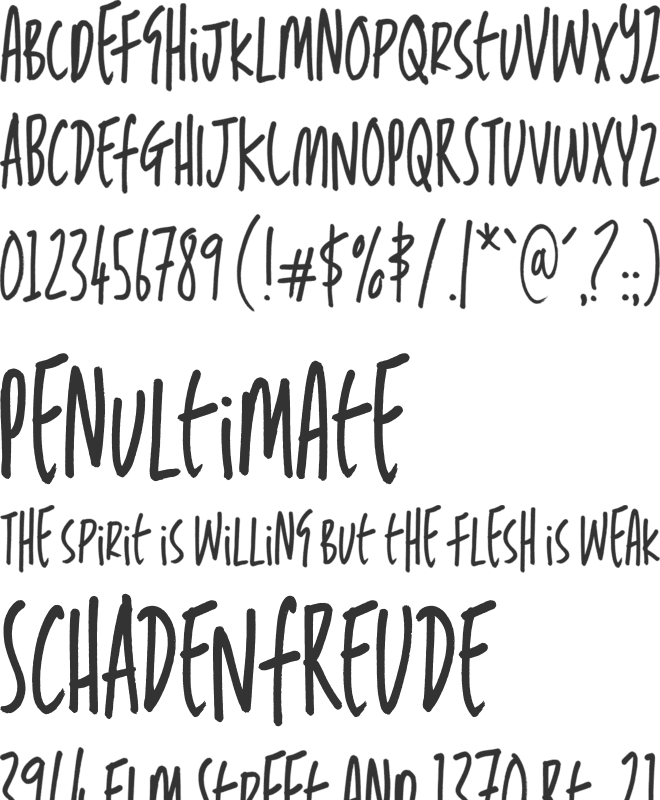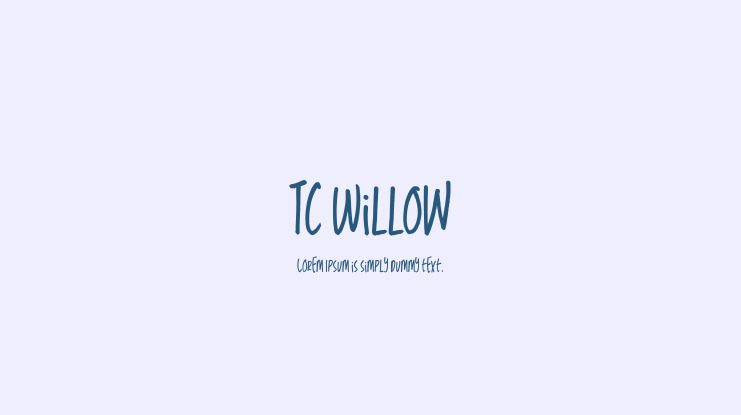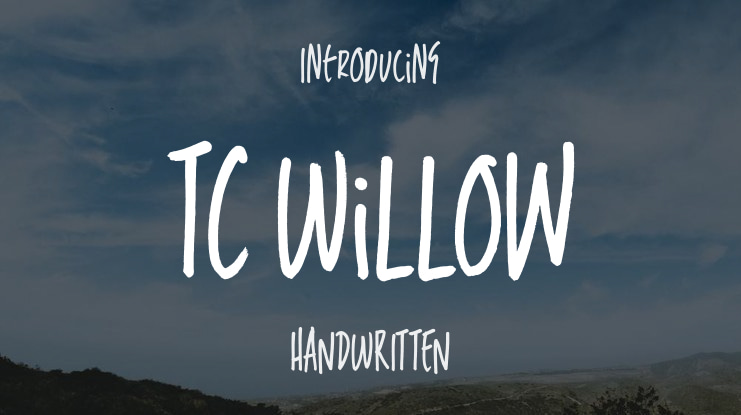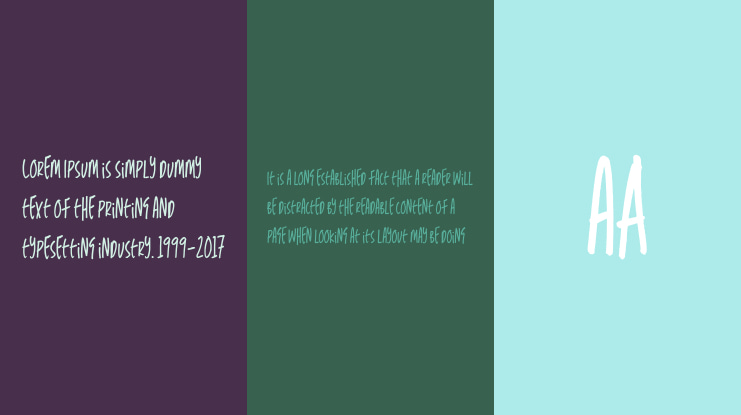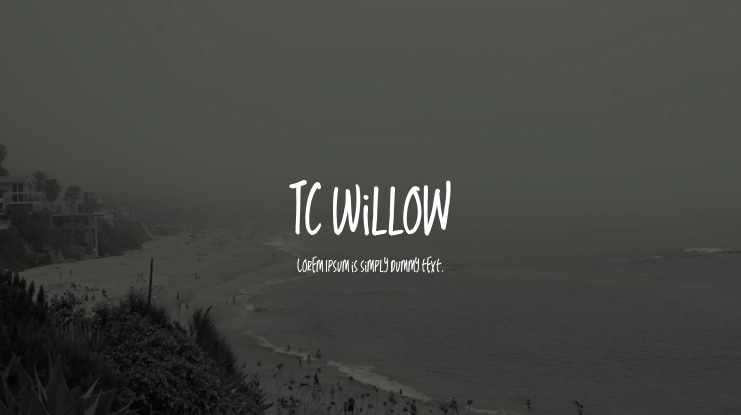
ABOUT THE FULL FONT COLLECTION:
Proudly introducing the Full ‘A’ Quirks Handwritten Font Pack! Inside, you’ll discover 4 expressively hand-lettered typefaces, each with 4 unique alternates per letter (A-Z) to help you achieve the perfect authentic look.
Before taking on this project, I set myself the task of creating and launching the collection within 7 days (a process that would typically take 4+ weeks). As you can see, I didn’t sacrifice quality. With such a tight deadline, I had to throw the rulebook out the window and focus on creating something truly authentic. I couldn't be happier with the end result, and this 7-day deadline approach will be making many more appearances in the future.
Each typeface is brimming with personality, quirkiness, and versatility. They work fantastically well with one another and complement modern serif/sans typefaces across a broad range of design subjects. So, be brave and let their jovial appearance inspire you!